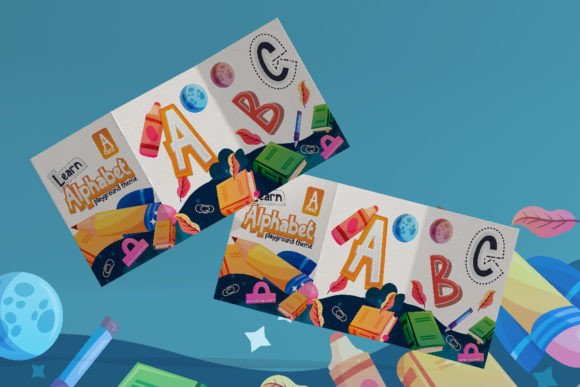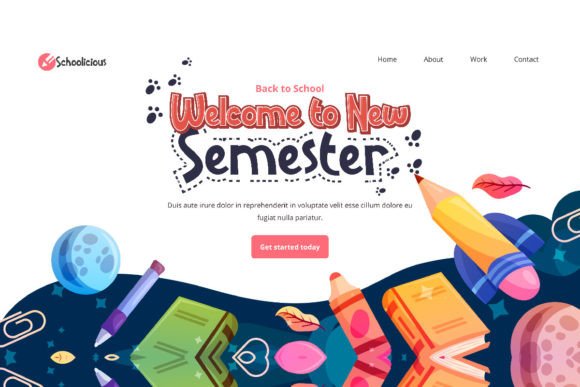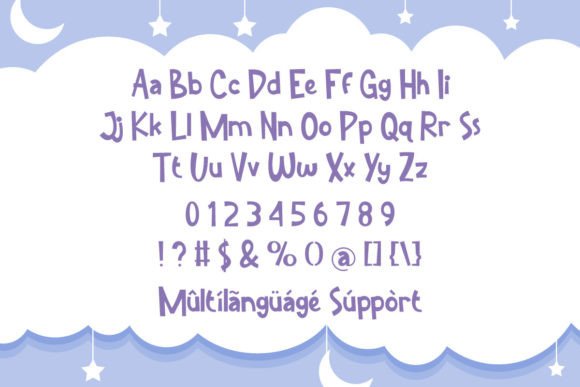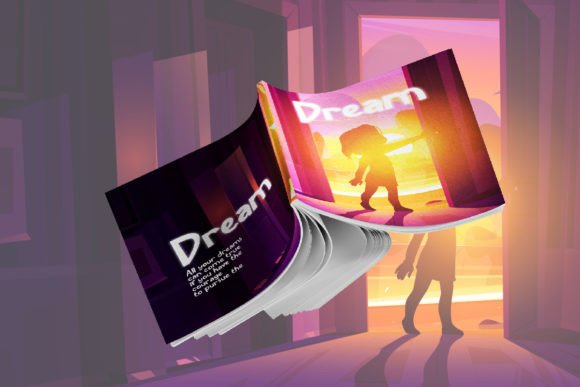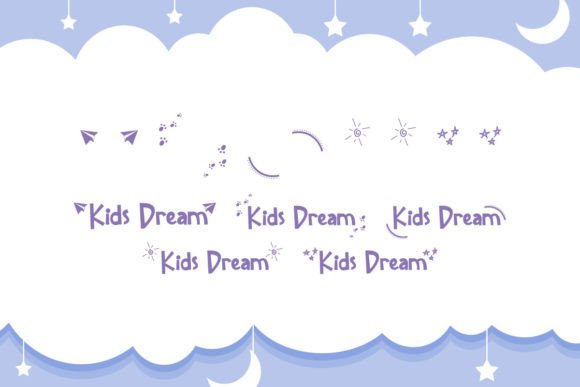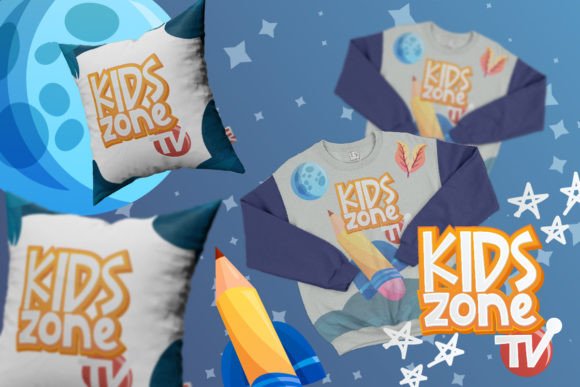
Bringing Imagination to Life with Fonts
Have you ever stared at a blank page, wondering how to capture the essence of a children’s brand or product? The struggle is real – but what if you had the perfect tool to bring your ideas to life? Enter Kids Dream Font, a playful and humorous typeface designed specifically for kids-related projects. This charming font is more than just a pretty face; it’s a way to connect with your young audience on a deeper level.
As a designer, you know how crucial it is to have the right font to match your brand’s personality. Kids Dream Font is the perfect addition to your toolkit, allowing you to create engaging and whimsical designs for birthday invitations, cartoon logos, and more. Its versatility makes it a valuable asset for any project that needs a touch of childhood magic.
Kids Dream Font Key Features
- Unique Characteristics: The Kids Dream Font features playful, whimsical letterforms with rounded edges and smooth curves, making it perfect for creating engaging and child-friendly content.
- Character Set: The font includes a comprehensive character set, including uppercase and lowercase letters, numerals, punctuation marks, and special characters, ensuring that you have everything you need to create professional-looking text.
Designer Review: Kids Dream Font
Kids Dream Font is a whimsical and playful typeface designed for children’s content. ✨ I appreciate how the font is friendly and approachable, making it suitable for a variety of applications such as kids’ books, educational materials, and even children’s product branding.
- It’s highly customizable, allowing users to adjust the font weight, width, and even the spacing between characters.
- The font includes a range of alternate characters and ligatures, which can add an extra layer of personality to the design.
- It’s optimized for digital use, ensuring that it looks great on screens and in various resolutions.
However, there are a few limitations to consider: ⚠️ The font might not be suitable for formal or professional applications, as it can come across as too childlike. Additionally, some characters may not be as well-designed as others, which can affect the overall consistency of the font.
Overall, I think Kids Dream Font is a great option for designers working on children’s projects. While it’s not perfect, it’s a fun and engaging typeface that can add a lot of personality to a design. With a little tweaking and experimentation, it can be a great choice for kids’ content.
Use “Kids Dream Font” for children’s book covers, party invitations, and educational materials.
Combine the font with bright colors and playful graphics to create an engaging design.
Experiment with different font sizes and styles to add visual interest to your design.
Party invitations, children’s book covers, educational materials, and social media graphics.
Use “Kids Dream Font” to create eye-catching and playful designs that appeal to children and parents alike.